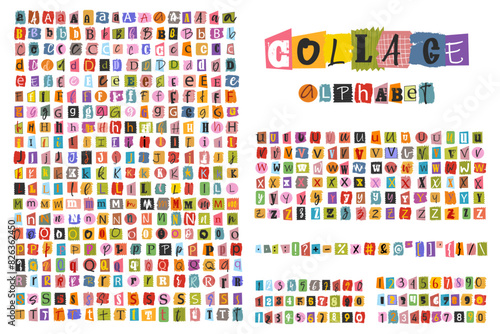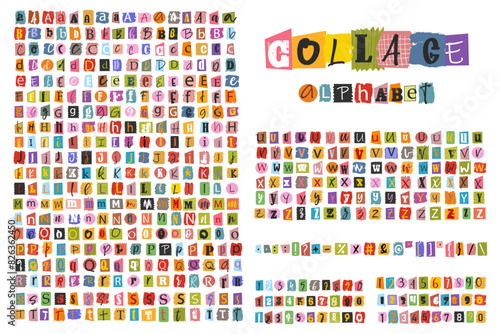
Alphabet collage of colorful cut out newspaper letters. Graffiti grunge style type font. Hand drawn alphabet .Handmade paper cut ransom note style font. Grunge punk clipped elements collection